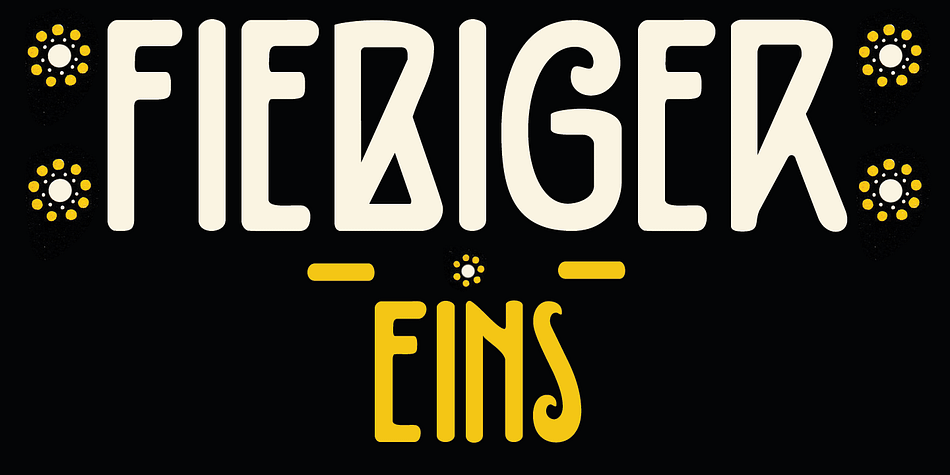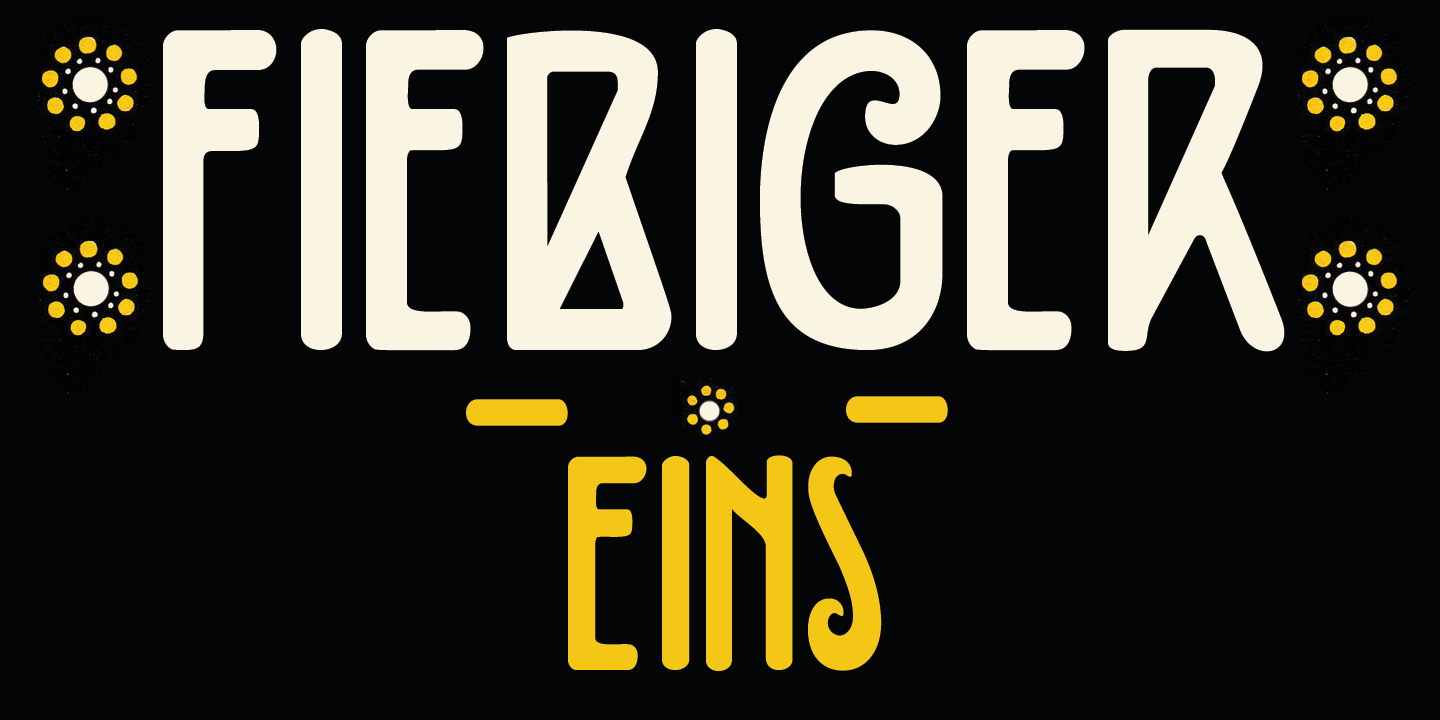
Fiebiger Eins is a kids font published by Hanoded.
Franz Fiebiger (1880 - 1932) was an Austrian painter and designer who was associated with the Vienna Secession. In 1908 he created a beautiful poster for the Kaiserjubiläums Möbel Ausstellung - a furniture exhibition during the Kaiser’s Jubilee. Fiebiger Eins (meaning Fiebiger One) is based on one of the hand made typefaces gracing this poster. As I had to work with only a few glyphs, I designed the missing ones myself. Fiebiger Eins comes with language support befitting a Kaiser…